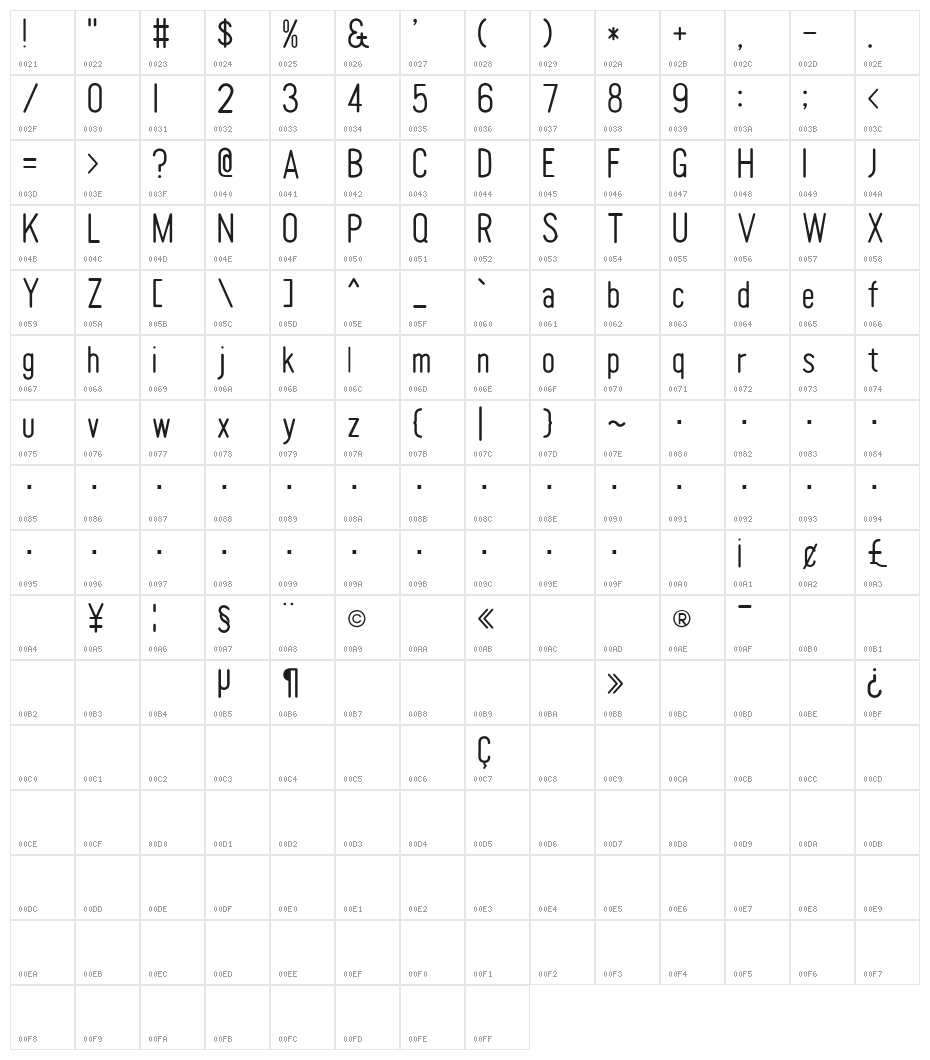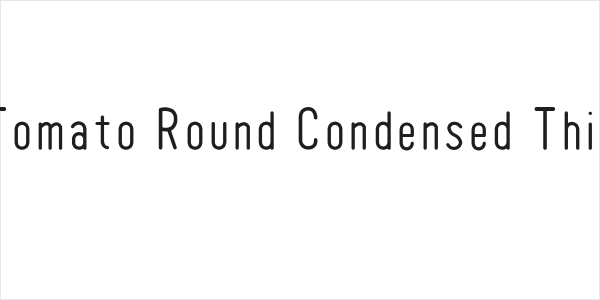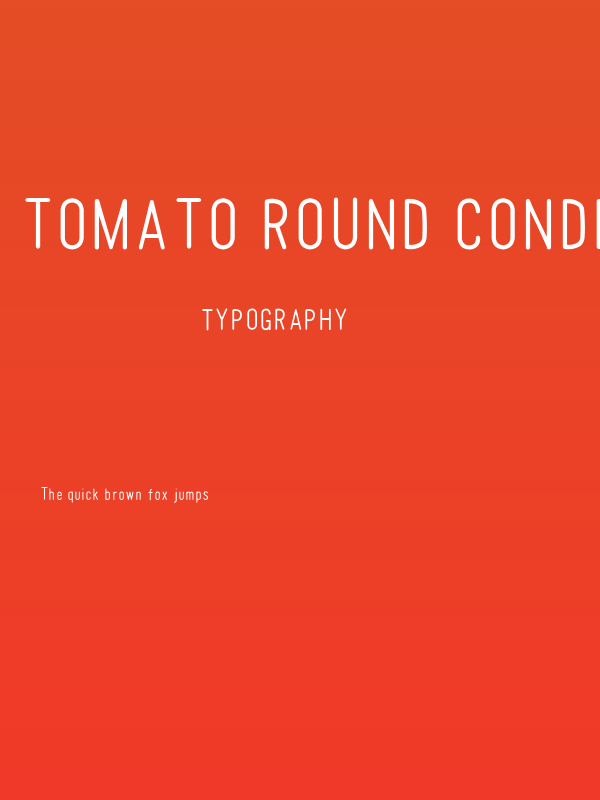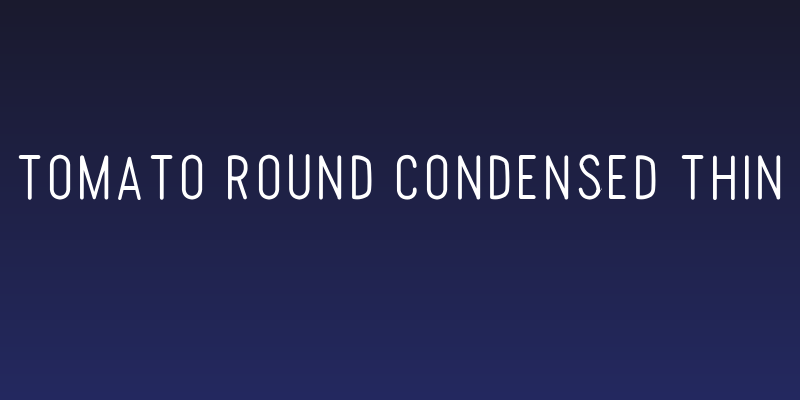
Tomato Round Condensed Thin Font
Tomato Round Condensed Thin Description
This font features a clean and modern aesthetic with a condensed structure, making it ideal for space-saving designs. The characters are rounded, giving a friendly and approachable feel. The thin strokes contribute to its elegant and sleek appearance, suitable for contemporary projects. Its uniform line weight and minimal contrast make it versatile for various applications, from digital interfaces to print media. The font maintains clarity and readability even at smaller sizes, which is enhanced by its tight character spacing.
| Proposed Projects | Ideal for branding, packaging, digital interfaces, and editorial design. |